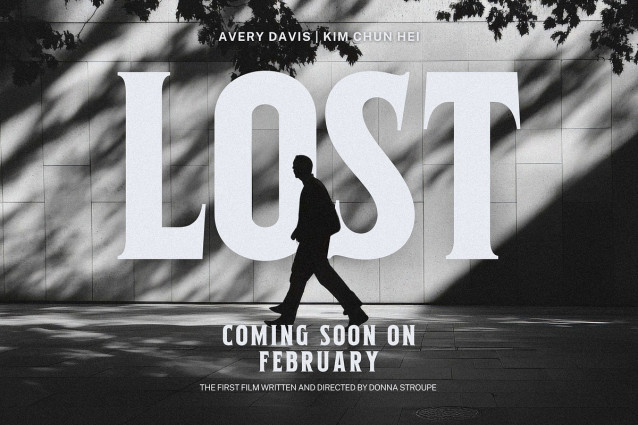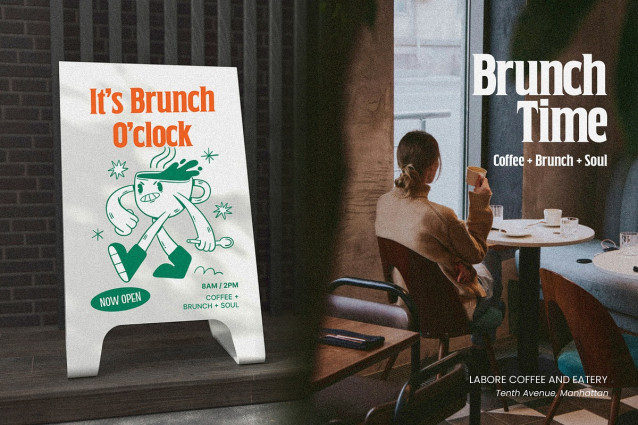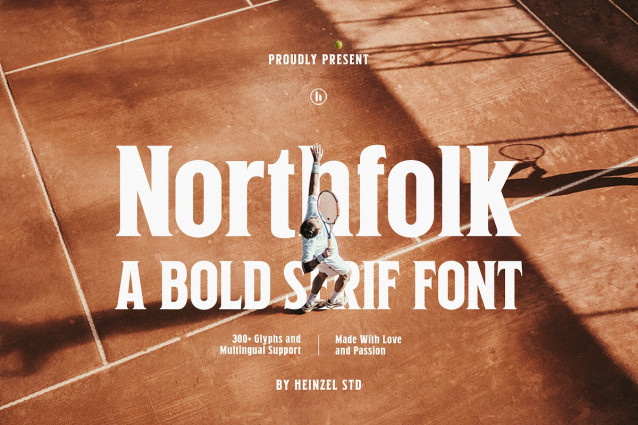
Northfolk Font
Northfolk Font is a bold serif font designed to make a strong and confident visual statement. With its solid letterforms, classic serif structure, and modern proportions, Northfolk blends timeless elegance with contemporary strength. This font is perfect for headlines, posters, branding, editorial layouts, sports visuals, packaging, and logo design. Its bold presence ensures excellent readability while delivering a powerful and professional look. Featuring extensive glyph coverage and multilingual support, Northfolk is a versatile serif font built to elevate impactful designs that demand attention and authority.